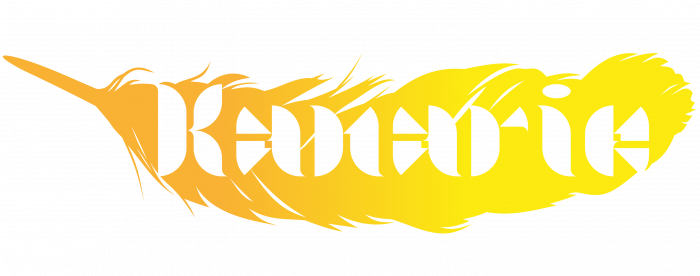
Once more a very fresh font by none other than the modular master!
Some letters are not that legibility, and its somewhat intensive on the readability aspect, it gets better when one lets it sink in for a bit first..
But I guess none of the above is of actual great importance for a Blackletter font.
First Rozenbottel, then Zwaar, then Blauw, now this? It's awesome!
Beautiful font, compañero! I love the look of thick Japanese brush strokes of ink that the endings have. Fantastic ?!
Yet another lovely font, and the feather sample is particularly eye-catching
Perhaps the word Kanarie is not very visible and it would have been better filled with another color... But it is a personal opinion, the same as when I say that this font would deserve a TP (IMHO).